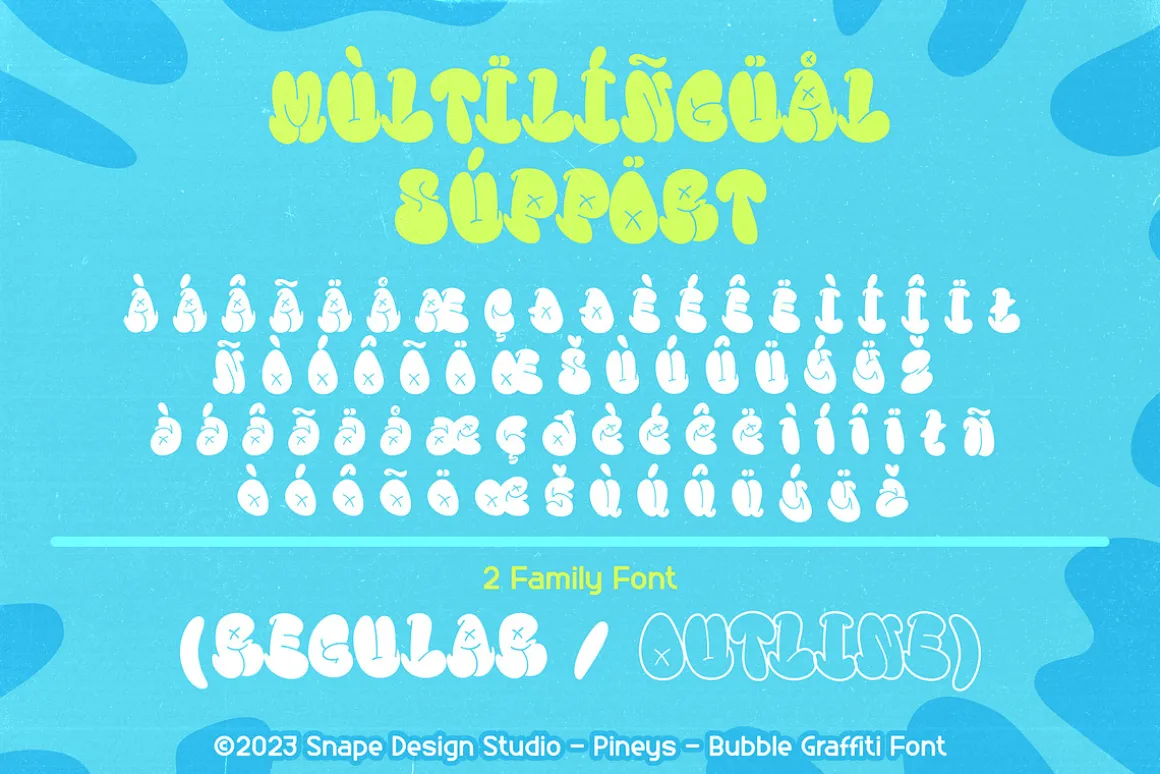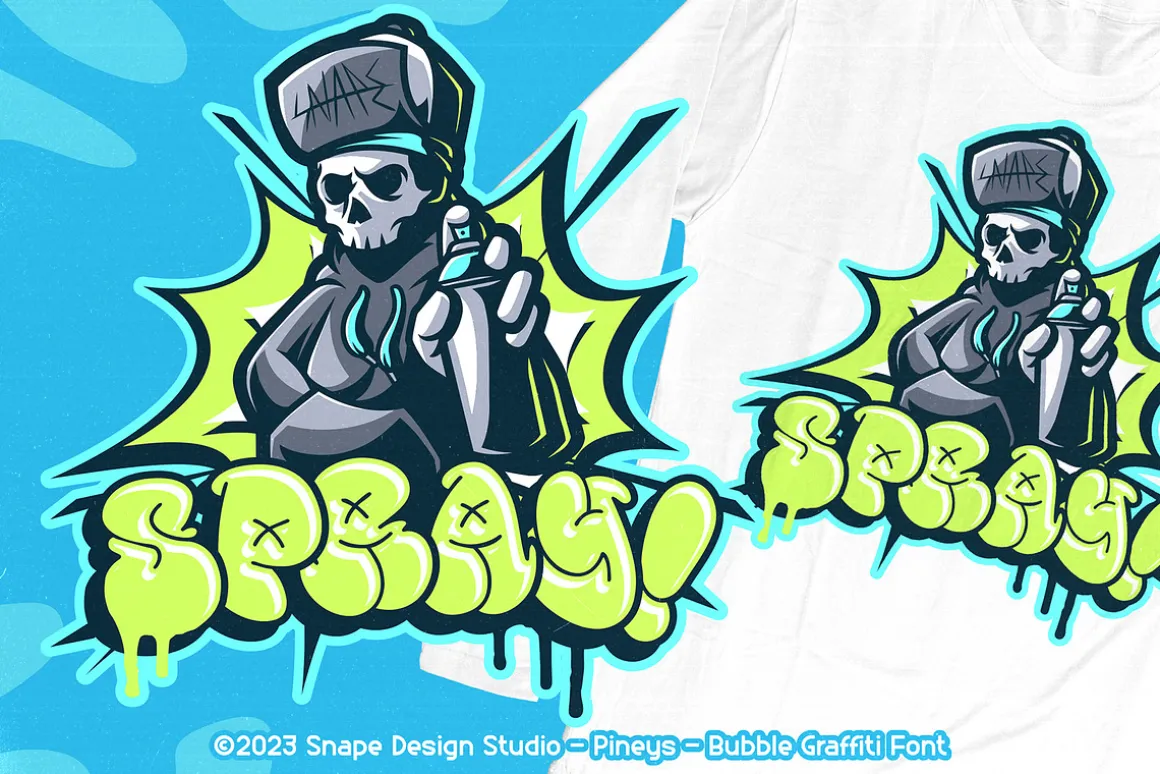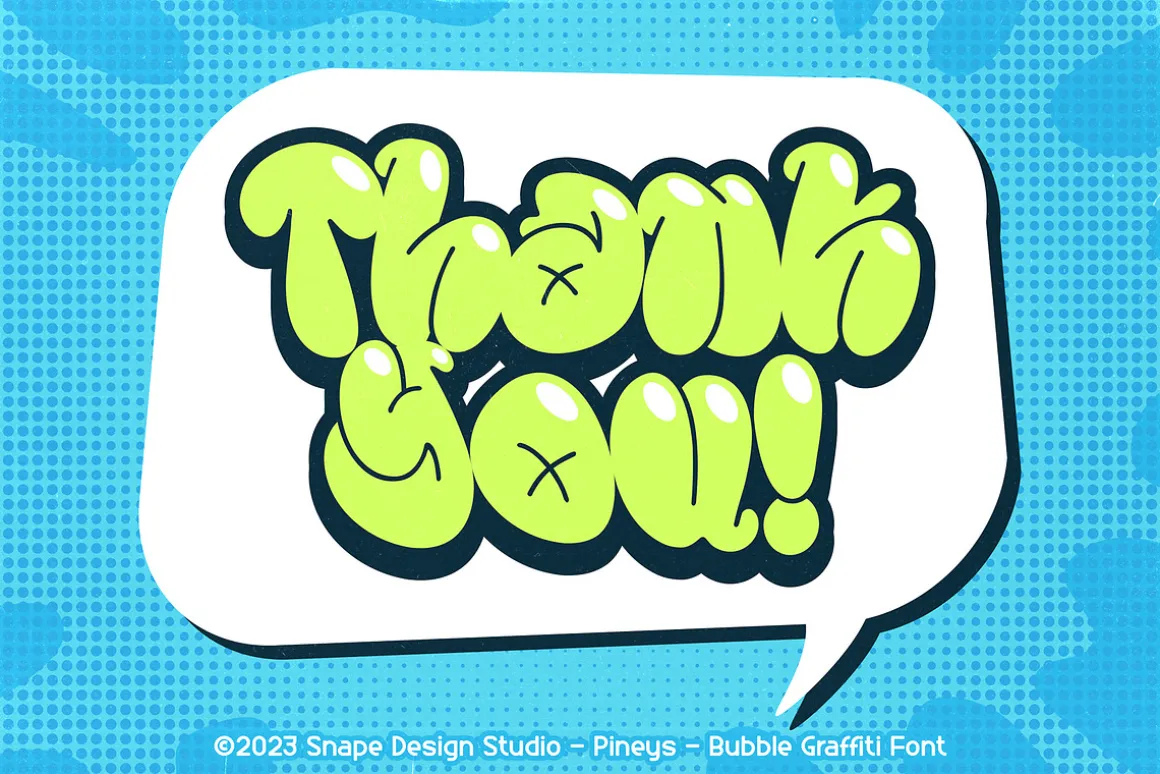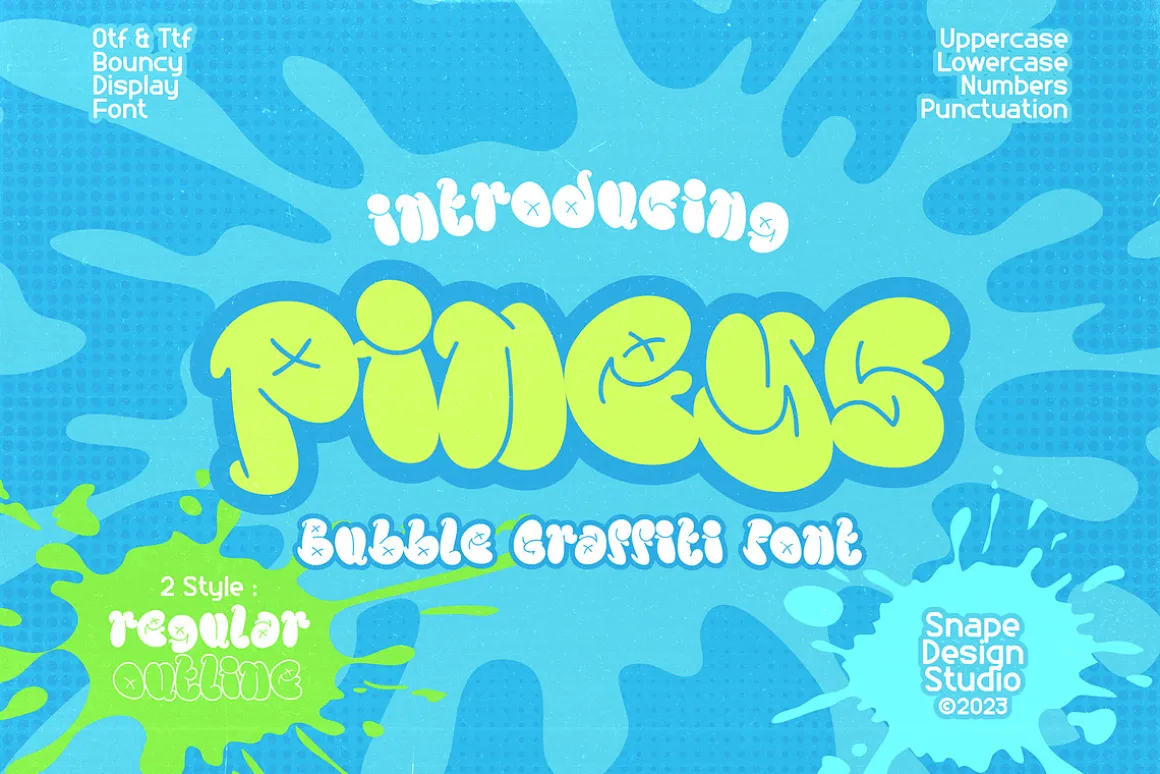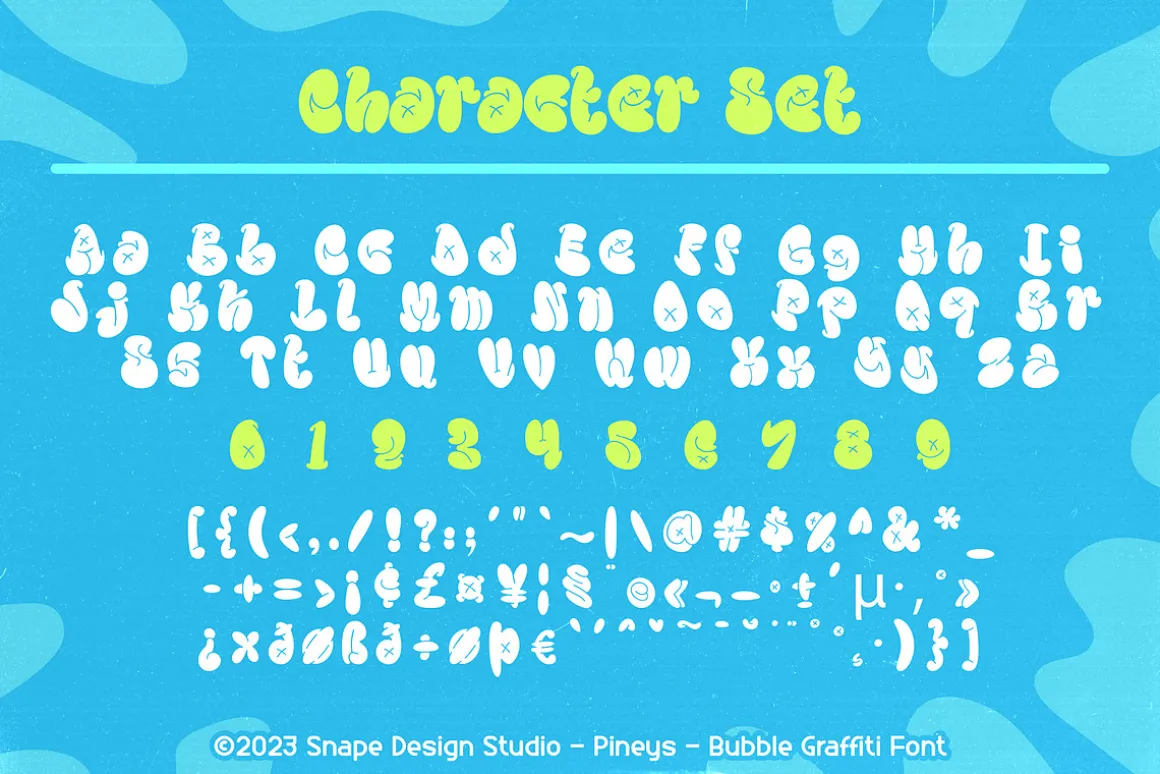
Unleash the nostalgic essence of early 2000s graffiti culture with Pineys, the captivating Bubble Style Font. Inspired by the rebellious spirit and urban artistry of that era, this font encapsulates the bold and playful essence of bubble lettering.Embrace the edgy and contemporary feel of the Bubble Graffiti Font by pairing it with urban-themed designs or street art-inspired graphics. Add this font to your creative ideas and notice how it will make them stand out!